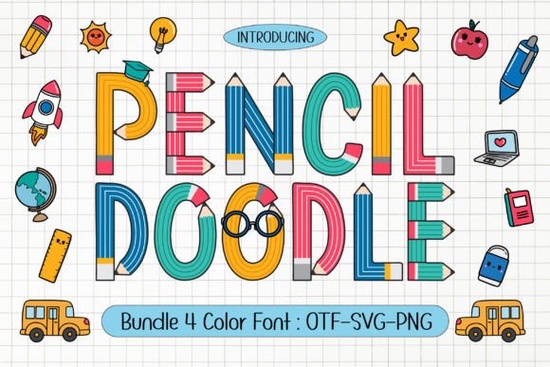
If you’re looking for a font that feels like it just walked out of a cheerful classroom, Pencil Doodle Font is worth checking out. It’s not your average typeface it’s playful, colorful, and built with kids (and kid-at-heart creators) in mind. Whether you’re designing personalized name tags, back-to-school posters, or sublimation projects for mugs and t-shirts, this font adds instant charm without needing extra embellishments.
What makes this font different from other playful fonts?
Most fun fonts try to capture childhood energy, but Pencil Doodle actually mimics the look of pencil-drawn letters complete with eraser smudges and scribbly edges. You get four distinct color styles: bright yellow (like classic #2 pencils), mint green, sky blue, and coral pink. Each style keeps the same hand-drawn texture but swaps the hue, so you can match your project’s mood or branding easily.
It also comes with 20 matching doodle clip art pieces think stars, apples, rulers, backpacks, and smiley faces all drawn in the same sketchy pencil style. These aren’t just decorative extras; they’re designed to integrate seamlessly into your layouts. Try pairing them with names for classroom labels or using them as bullet points in activity sheets.
Who should really consider downloading this?
- Print-on-demand sellers This font pops on products like tote bags, water bottles, and kids’ apparel. The colors are bold enough to stand out even at small sizes.
- Teachers and homeschoolers Create custom worksheets, flashcards, or wall charts that feel less “institutional” and more inviting.
- Crafters working with sublimation or vinyl The clean outlines and solid fills make it easy to cut or print without losing detail.
- Small businesses targeting parents or schools Use it for seasonal promotions, event flyers, or social media graphics during back-to-school season.
One thing to note: because of the layered color styles, you might want to experiment with how each version looks against different backgrounds. The yellow pencil style, for example, shines on dark paper but can fade on white unless you add a subtle outline or shadow.
How do the doodles actually work with the letters?
The clip art isn’t just slapped on it’s sized and styled to complement the font’s proportions. A lowercase “a” sits nicely next to a tiny apple doodle. An exclamation point can be swapped for a smiling pencil. You don’t have to use them together, but when you do, everything feels cohesive.
Any tips for getting the most out of it?
- Layer it lightly. Because the font already has personality, avoid overloading your design with competing elements. Let the letters and doodles breathe.
- Mix color styles intentionally. Don’t use all four in one project unless you’re going for maximum chaos (which, sometimes, is exactly what you want).
- Pair it with simple sans-serifs. For body text or captions, choose something clean like Helvetica or Arial to keep the focus on your headline or title set in Pencil Doodle.
When’s the best time to use it?
While it’s perfect for back-to-school season, don’t box it in. We’ve seen crafters use it for birthday party invites, summer camp flyers, children’s book titles, and even motivational quote prints for classrooms or nurseries. The key is matching its energy to your audience if your project benefits from warmth, whimsy, or a touch of nostalgia, this font fits.
It’s also surprisingly versatile across age groups. Teens respond to its quirky vibe for locker decor or notebook covers, while younger kids love seeing their names written in “pencil” style. Even adults smile when they see it which says something about its universal appeal.